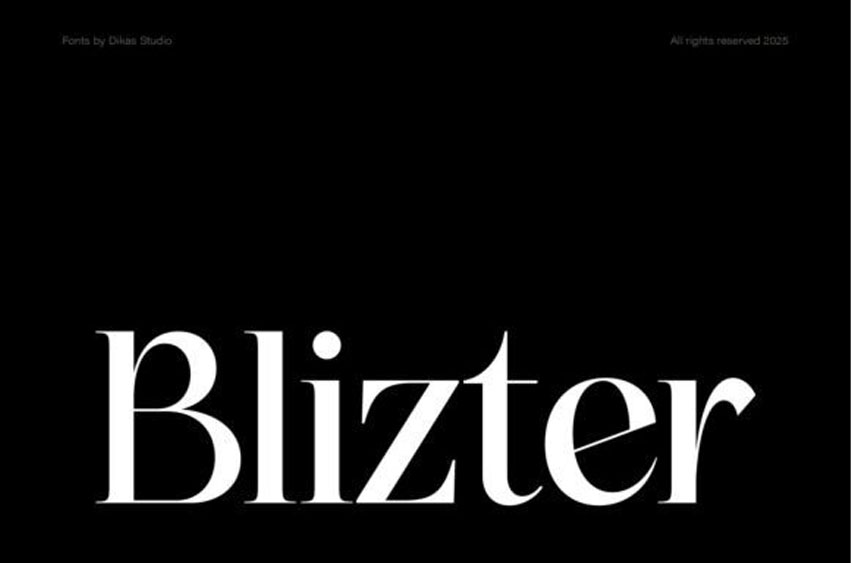
Blizter Regular Font
Blizter Regular Font is a sophisticated serif typeface that masterfully balances high contrast with soft, flowing curves. Designed to evoke elegance and modern refinement, it comes in two distinctive styles—regular and rough—and includes alternates and ligatures to enhance creative expression.
Whether you’re crafting fashion editorials, luxury product packaging, or high-end branding, Blizter brings a graceful yet impactful presence. With its classic charm and contemporary sharpness, this font turns typography into timeless design.